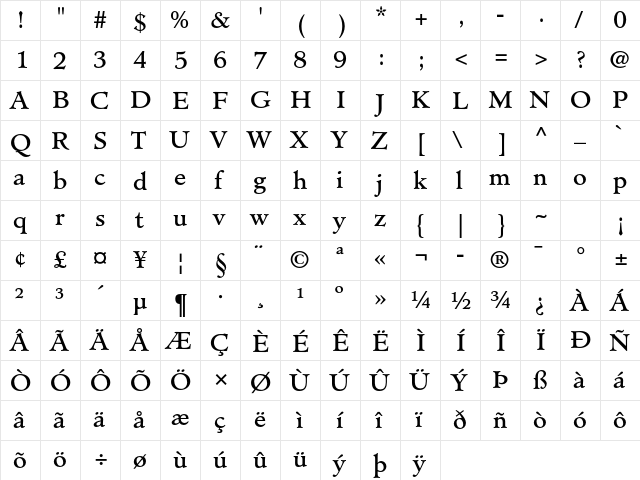
Minister Std Book
| Designer | M. Fahrenwaldt |
Design Context for Minister Std Typeface
Minister Std is a composed and adaptable typeface that performs quietly and consistently across a wide range of design contexts.